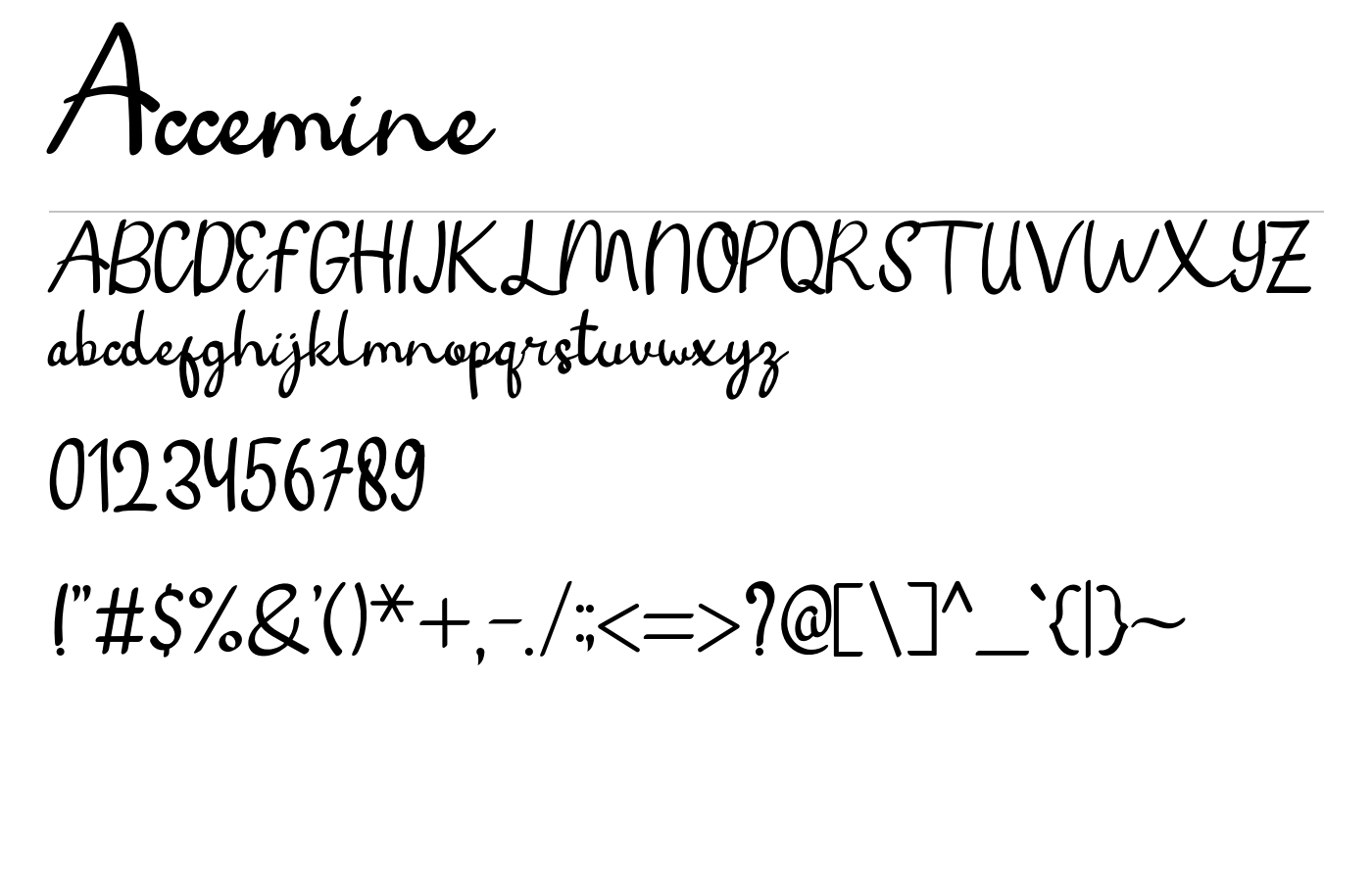
Accemine is a playful and casual handwritten script font with a friendly, slightly quirky character. Its light weight, smooth strokes, and tall x-height give it an approachable and energetic feel, making it ideal for creative projects, invitations, or branding that aims for a personal, informal touch. This font works well in headlines or short text where a warm, handcrafted style is desired.
Accemine Font
About Accemine Font